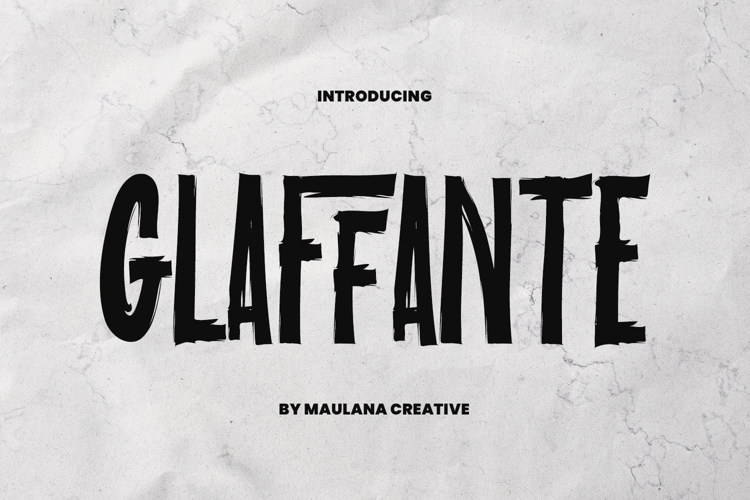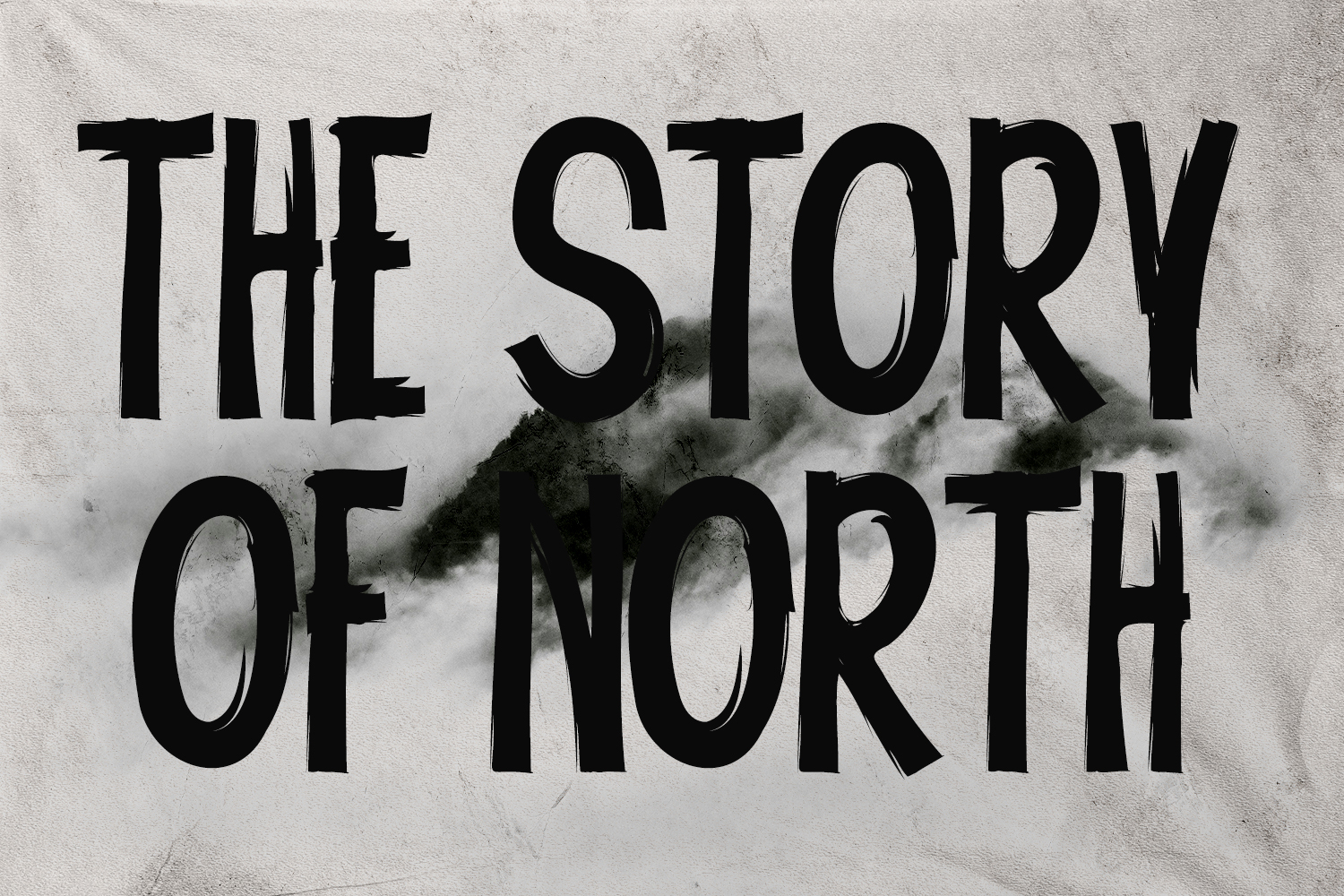
Introducing Glaffante Brush Sans Display Font a bold and stylish typeface that blends the clean lines of sans serif with the raw energy of hand painted brush strokes. Designed to command attention, this font is perfect for modern branding, powerful headlines, product packaging, posters, social media graphics, apparel, and more. Its unique balance of creativity and professionalism makes it versatile for both digital and print use. Whether you’re creating edgy urban designs or sleek modern visuals, Glaffante will add impact, authenticity, and character to your projects. A must have font for designers who want their work to stand out in the global creative.
Glaffante